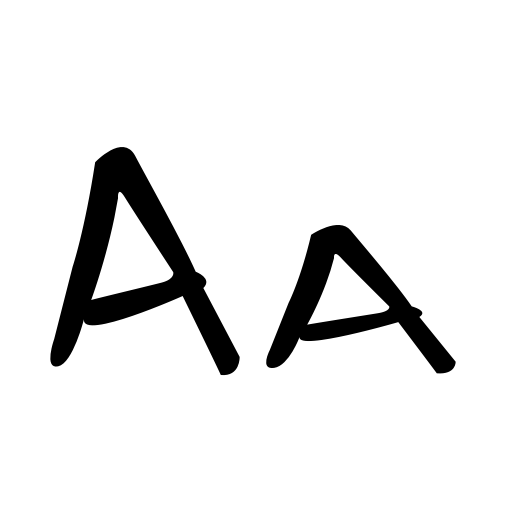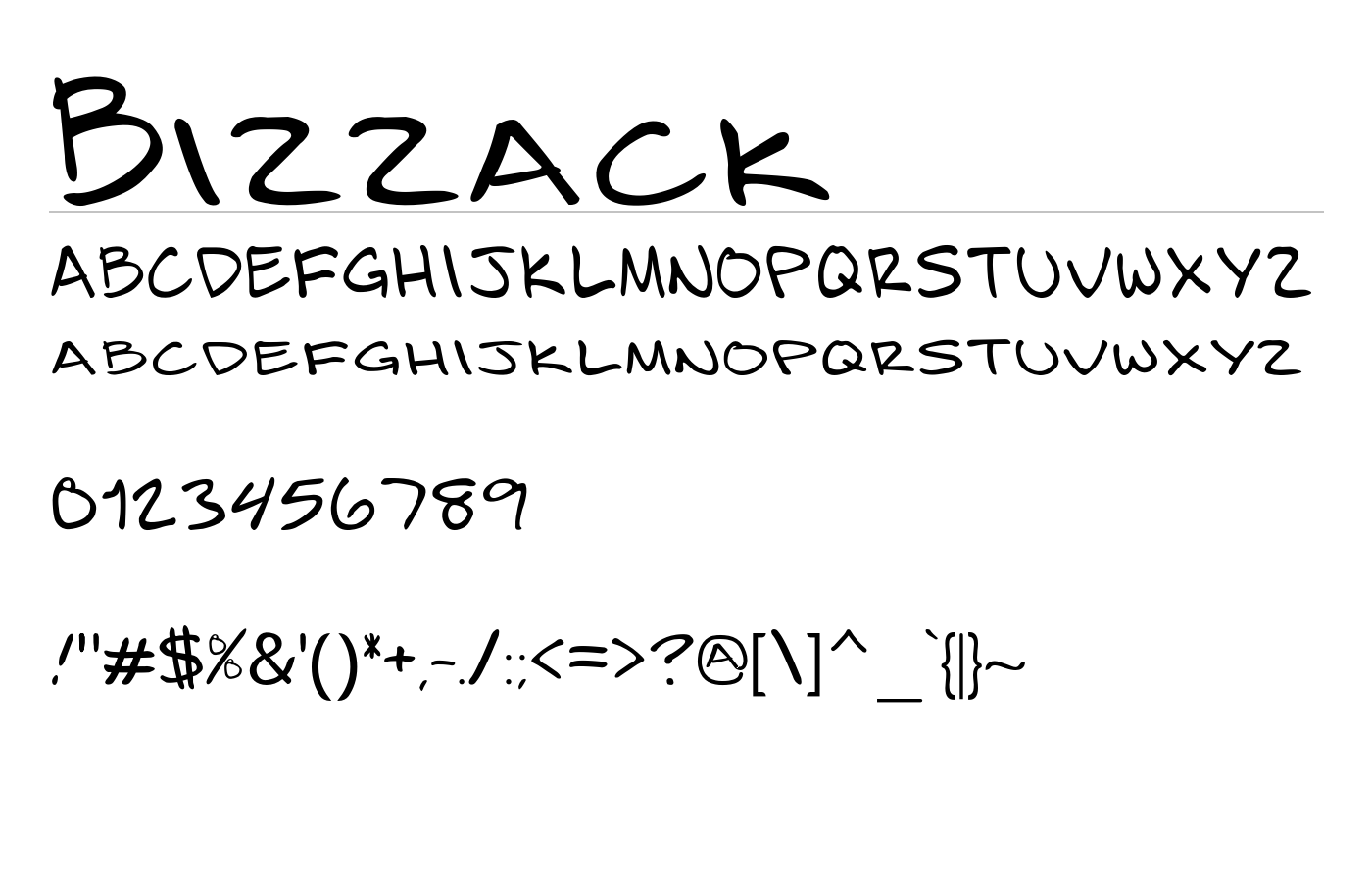
Bizzack is a playful, hand-drawn sans serif font featuring a casual and informal style with uneven strokes that mimic natural handwriting. Its irregular letterforms and lively character make it perfect for creative projects, children’s materials, or branding that seeks a friendly and approachable tone. This font works best for headlines, logos, and designs where a personal, fun touch is desired.
Bizzack Font
About Bizzack Font